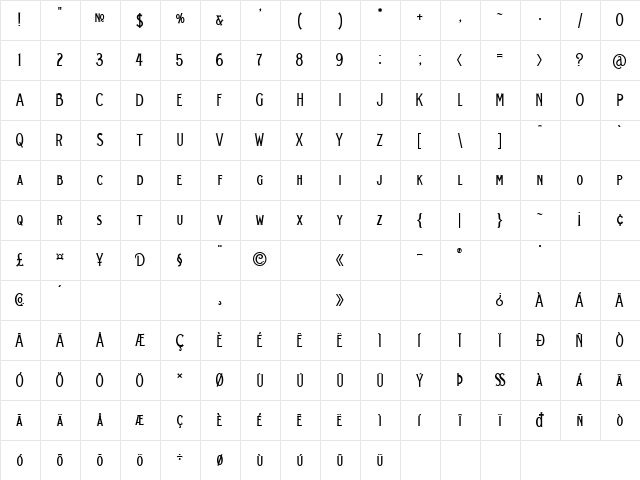
LHF Billhead 1900 Regular
Design Context for LHF Billhead 1900
LHF Billhead 1900 is a composed and adaptable typeface that performs quietly and consistently across a wide range of design contexts.
Pro Tip: Use LHF Billhead 1900 in both headline and body roles to test its range before committing to a single application.